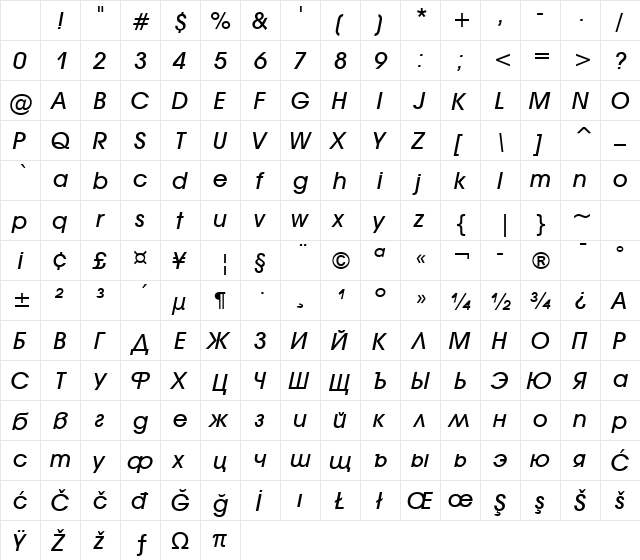
AvantGarde Medium Italic Medium Oblique
Style: Medium Oblique
Design Context for AvantGarde Medium Italic
AvantGarde Medium Italic is a composed and adaptable typeface that performs quietly and consistently across a wide range of design contexts. The slanted form adds forward momentum and visual energy.
Pro Tip: Use AvantGarde Medium Italic for emphasis, pull quotes, and subheadings where its slanted energy can add rhythm to the layout.